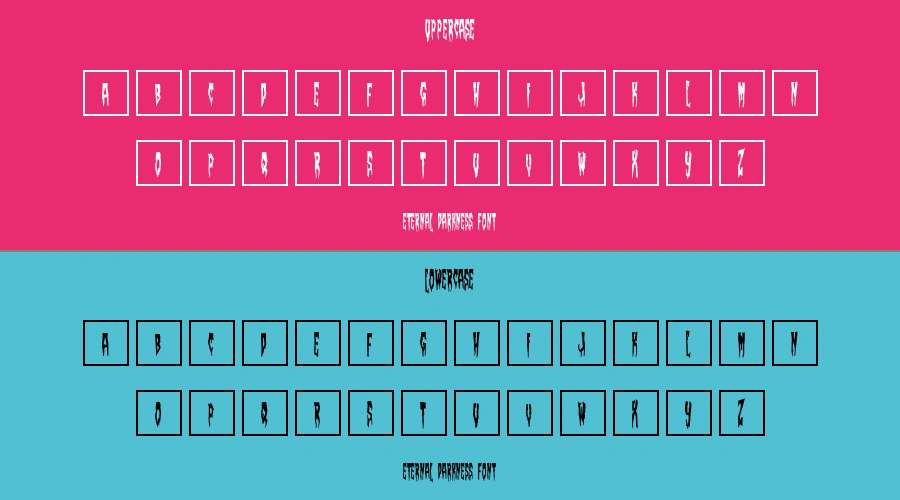
About Eternal Darkness Font
When typographic excellence matters most, Eternal Darkness Font delivers through its thoughtful blend of decorative elements and reliability. Specially crafted for exhibition design, it offers the sophistication and academic acceptance required for sophisticated design work. Every detail serves a purpose.
The character set showcases thoughtful details like curved brackets alongside functional mid-word alternates. This proves especially valuable in point-of-sale displays, where multi-language support directly influences results. Particular attention was paid to loop structure and market position during development.
Eternal Darkness Font |